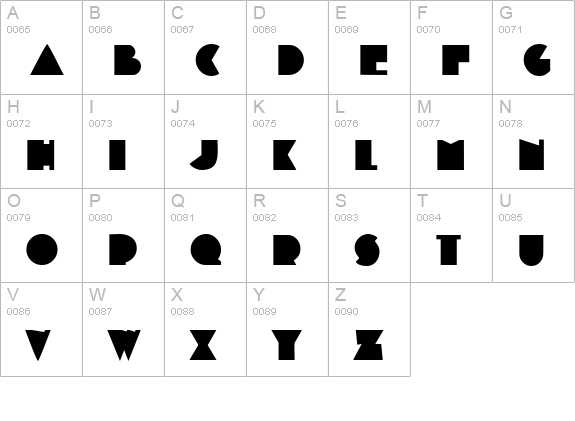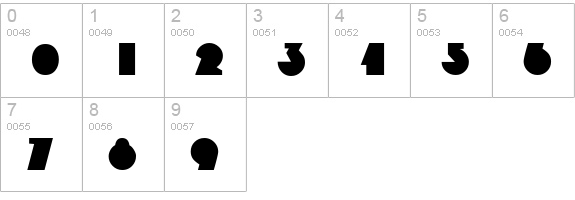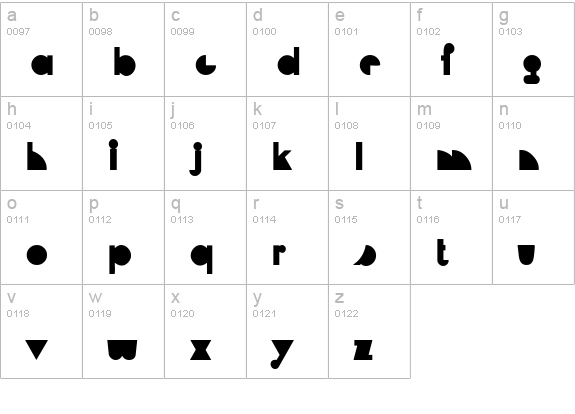
Mandrel Font Details
Introducing Mandrel, a captivating and versatile font that effortlessly combines modern elegance with classic appeal. With its clean lines and balanced proportions, Mandrel exudes a sense of sophistication that is perfect for a wide range of design projects. This alluring typeface boasts a unique blend of sharp edges and smooth curves, creating a visually striking contrast that commands attention. Whether used for headlines, logos, branding materials, or editorial designs, Mandrel effortlessly captures the essence of contemporary design while maintaining a timeless quality. One of the standout features of Mandrel is its extensive character set, which includes a variety of ligatures, alternates, and swashes. These additional glyphs provide endless possibilities for creative customization, allowing designers to truly make their projects stand out from the crowd. What's even better is that Mandrel is available for free download at FontsMarket.com. Yes, you read that right – this exceptional font can be yours without any cost. Simply head over to FontsMarket.com, search for Mandrel, and start exploring the endless design possibilities that this typeface has to offer. So, whether you're a professional designer looking to add a touch of elegance to your latest project or an aspiring creative seeking a versatile font that will make your work shine, Mandrel is the perfect choice. Its seamless blend of modernity and timelessness, combined with its availability as a free download, makes Mandrel a must-have font for every creative arsenal.